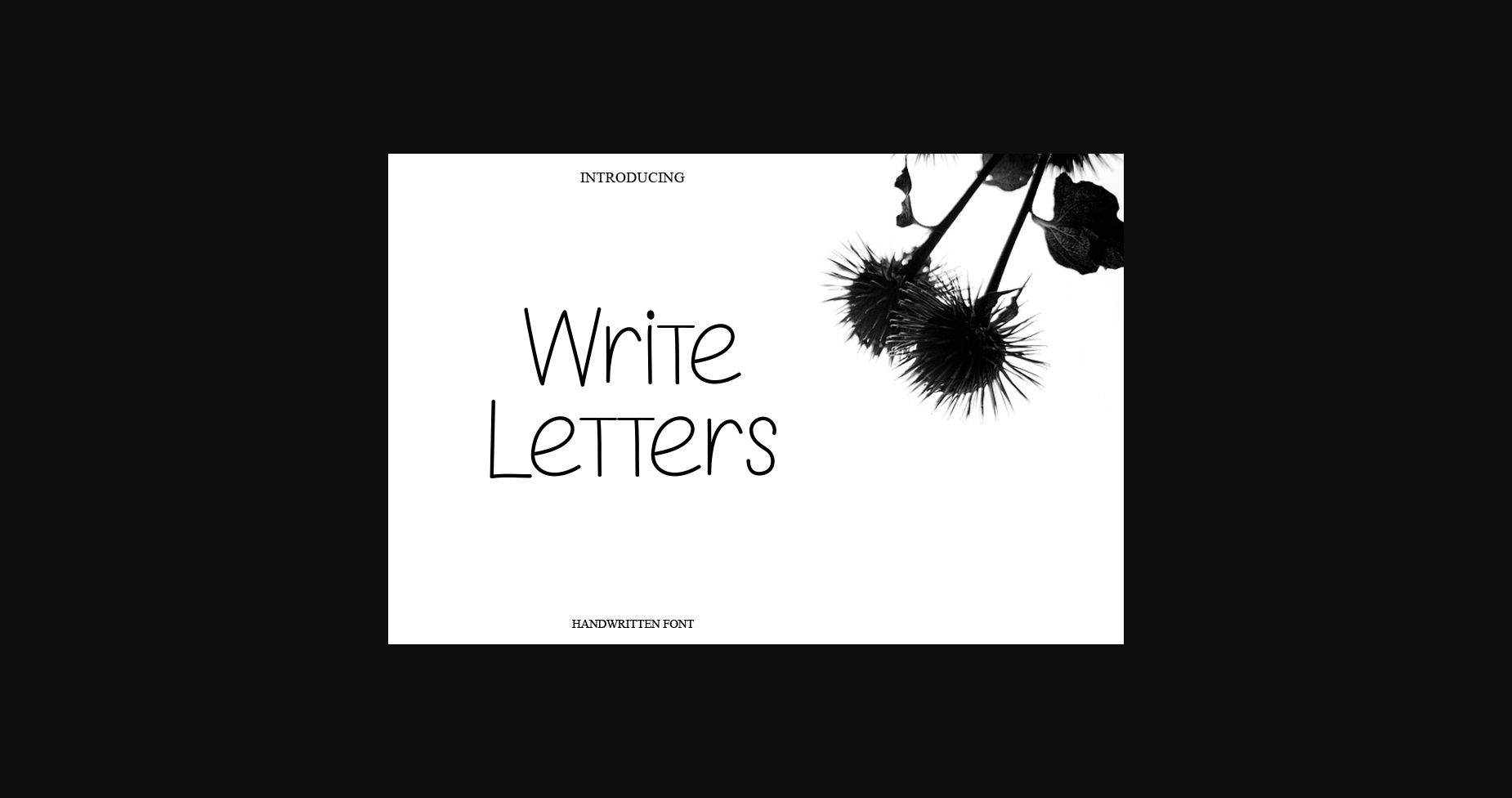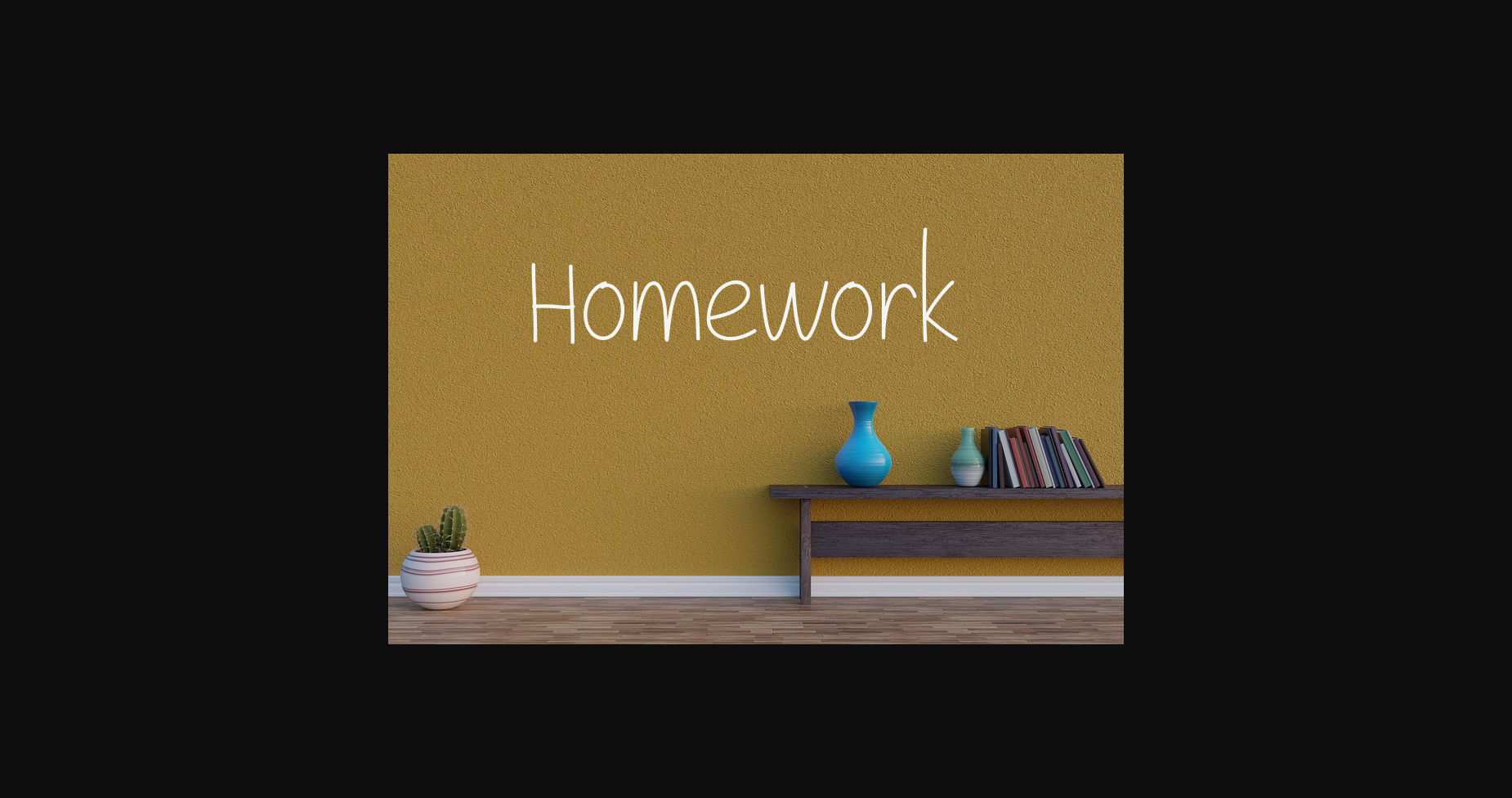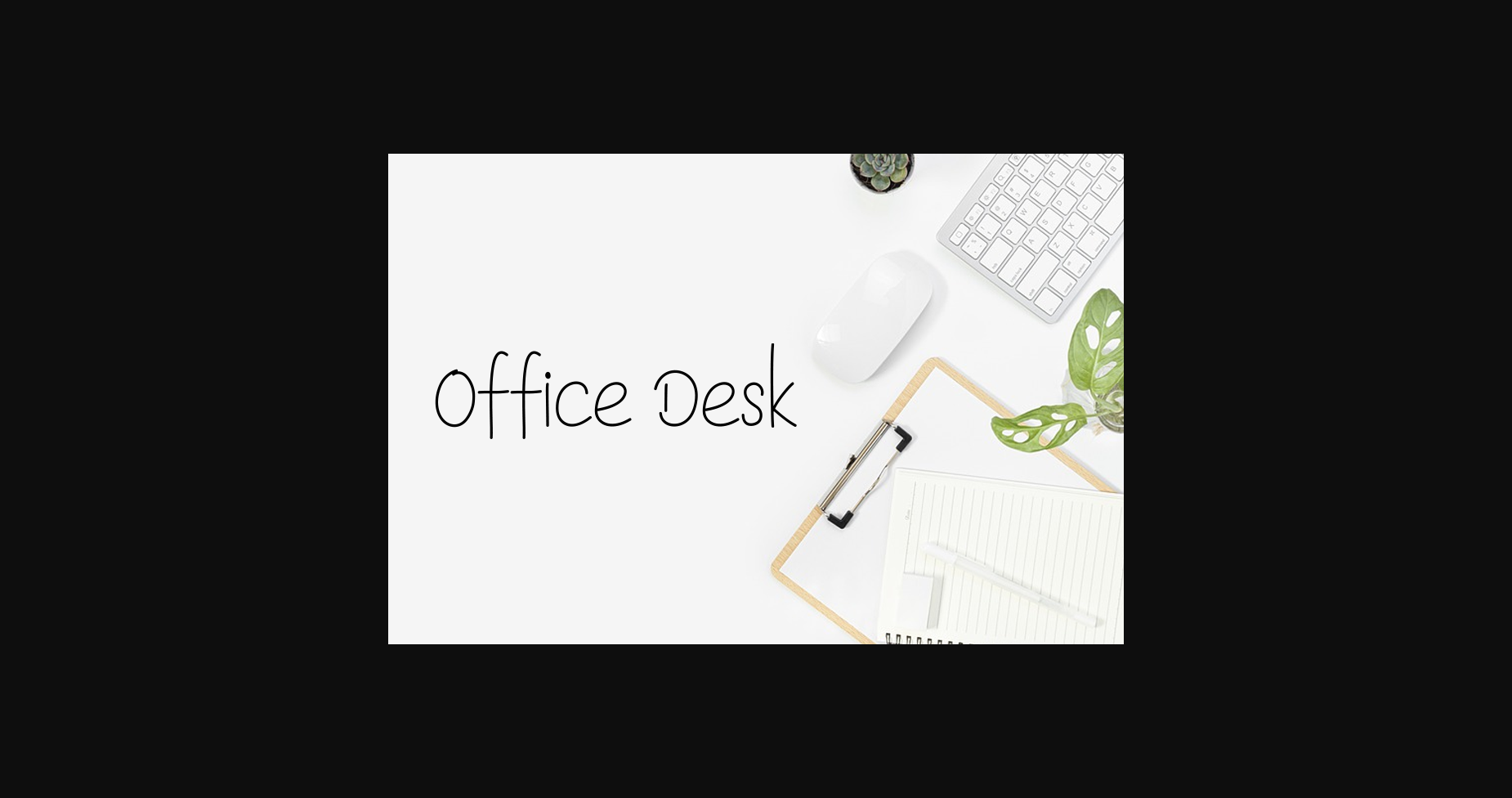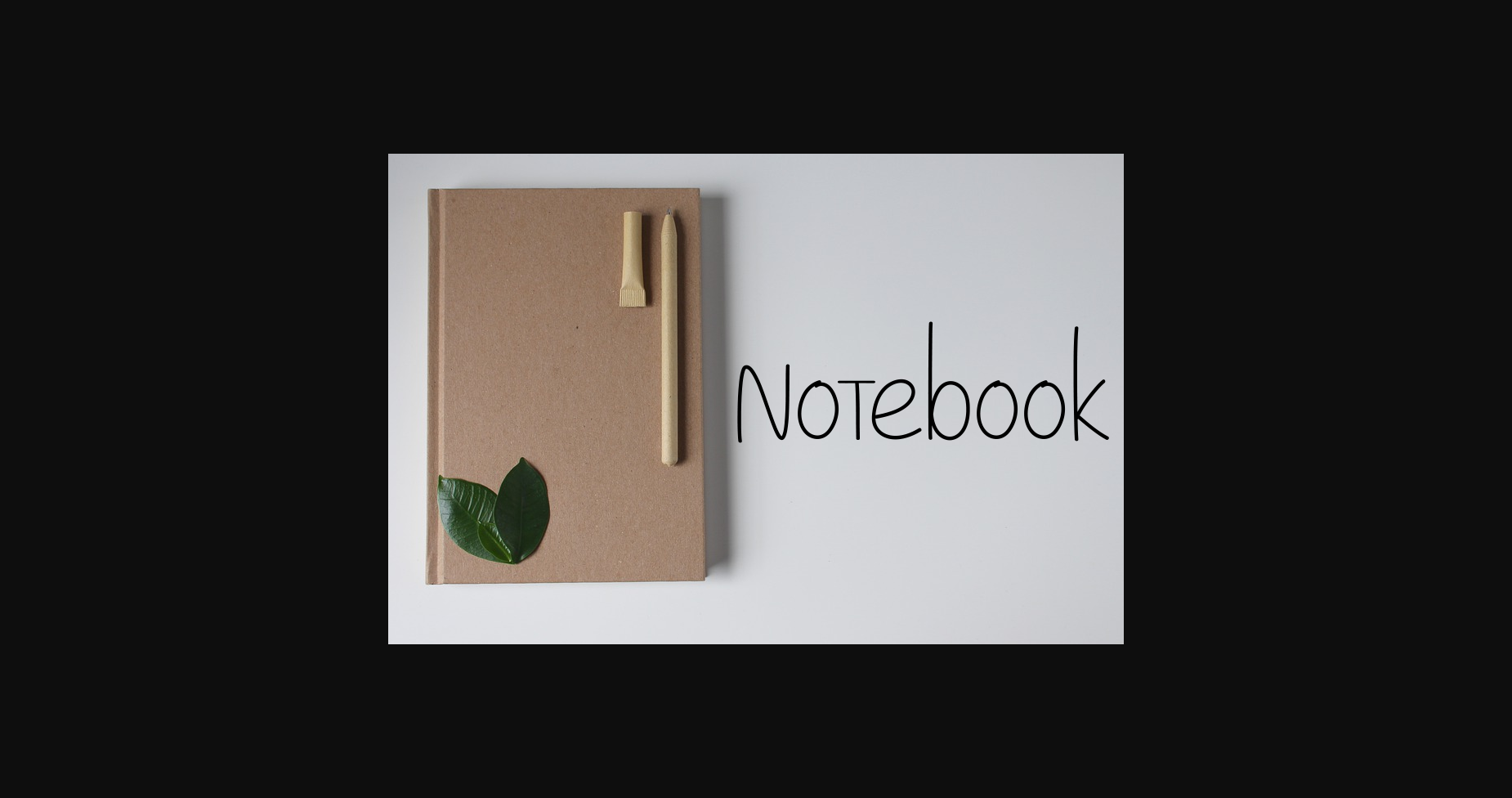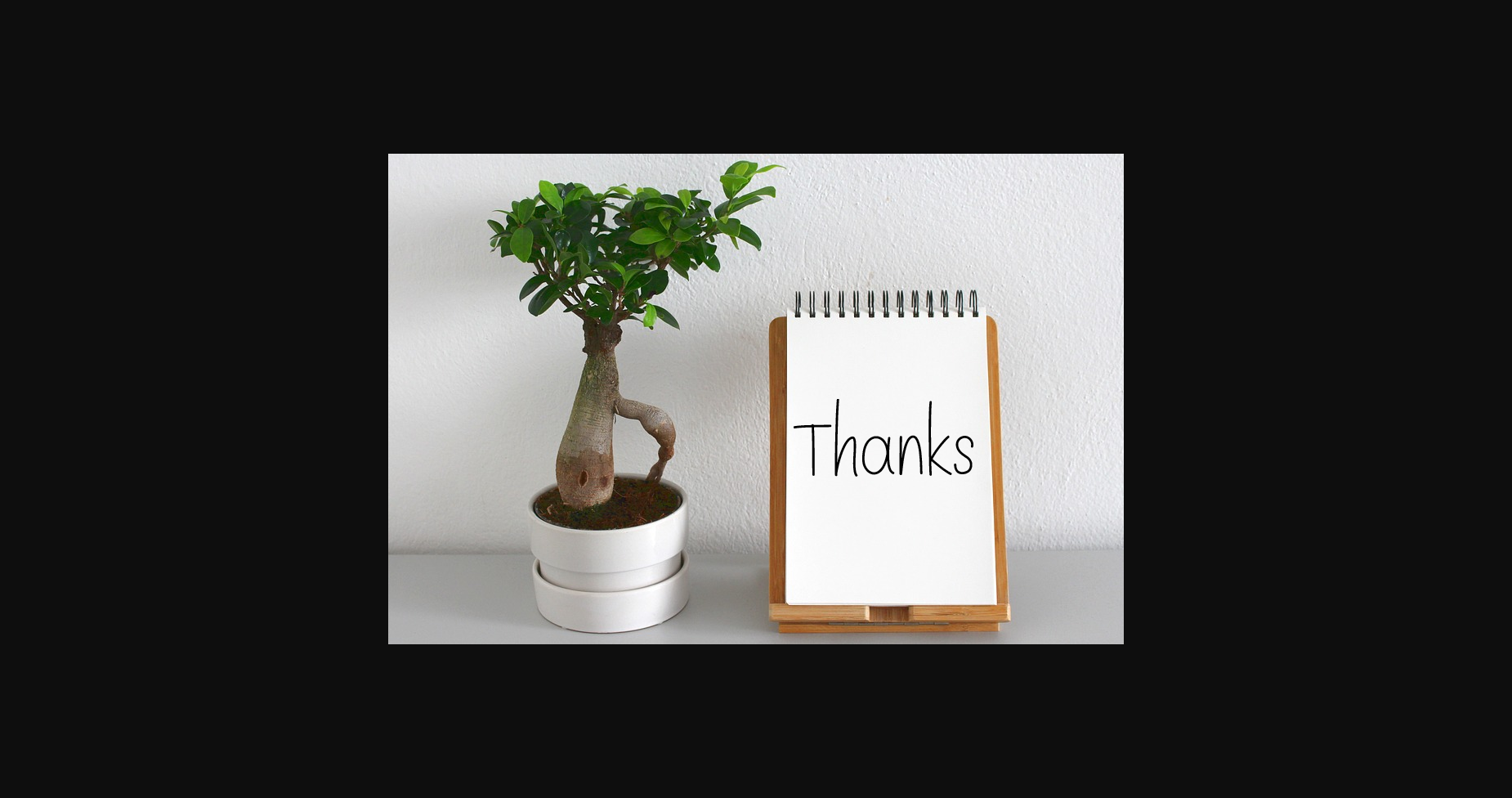
Write Letters Font
About Write Letters Font
Write letters is a cheerful and well-rounded sans serif font. Constant and elegant, this font will surely elevate the look of your next creations, and it is suitable for invitation letters, wall hangings, product labels, and more!